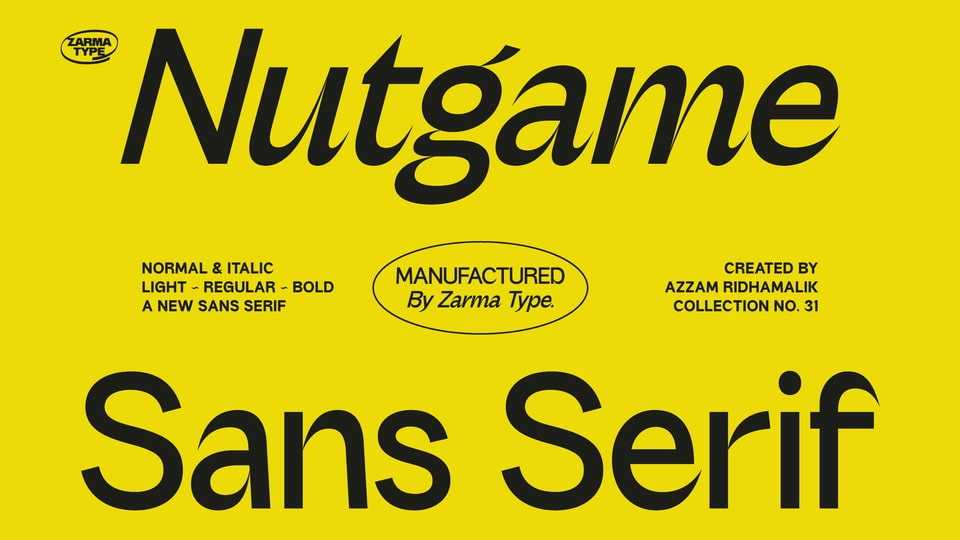
Download Nutgame font, a versatile sans serif typeface designed to elevate your designs. Embodying a modern appeal with a touch of 70s retro flair, Nutgame exudes a captivating and nostalgic vibe that is perfect for adding a unique and memorable twist to your creative works.
Designer: Zarma Type Foundry